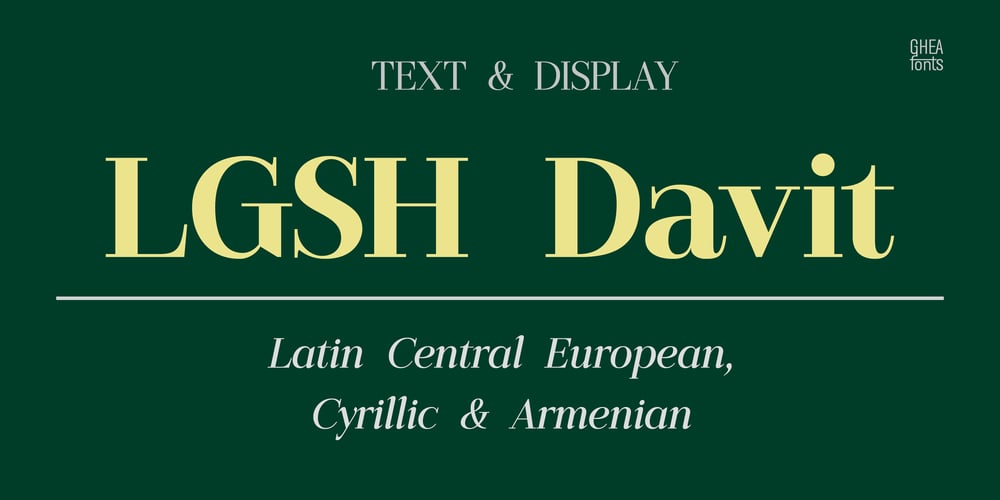
LGSH Davit
LGSH Davit font
LGSH Davit Font Family was designed by Liana Shushanyan and published by Edik Ghabuzyan. LGSH Davit contains 14 styles and family package options. LGSH David has 7 upright weights and their Italics. The typeface supports Latin, Armenian and Cyrillic alphabet systems. It is an easily readable two side easily readable serif font. LGSH David is a contrast style font with very delicate lines which are quite bright and clear.